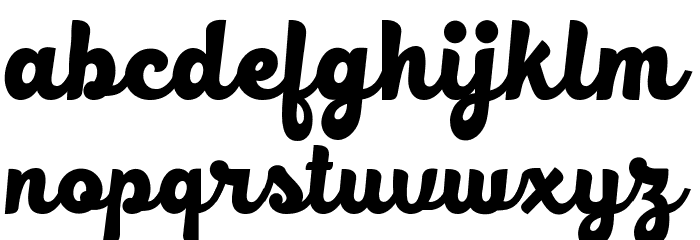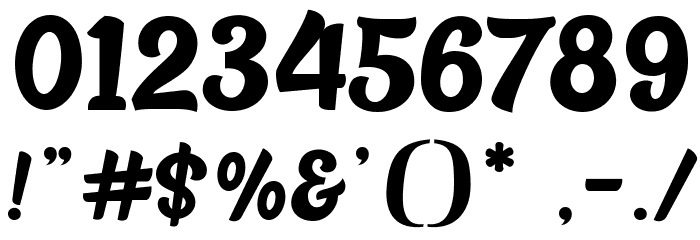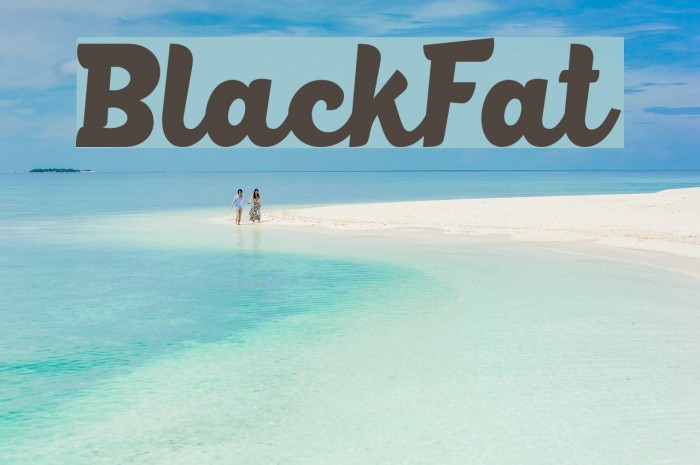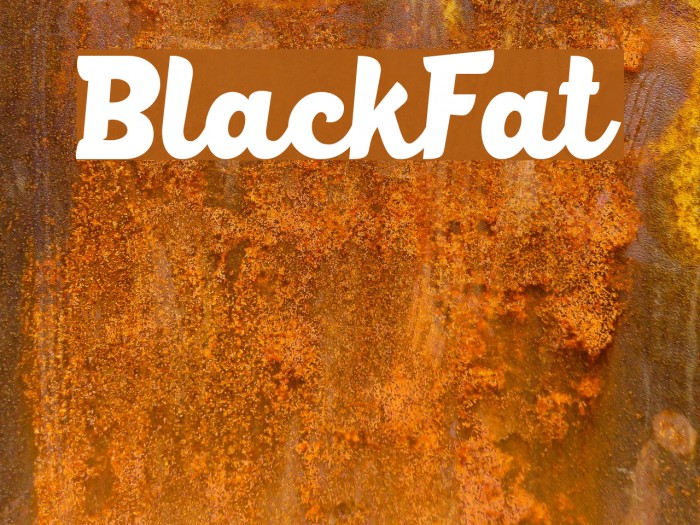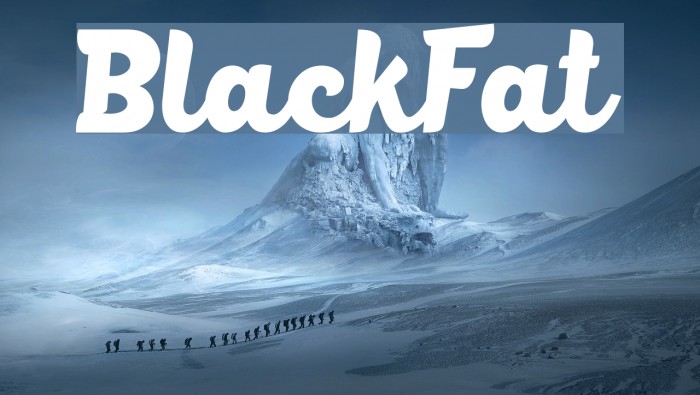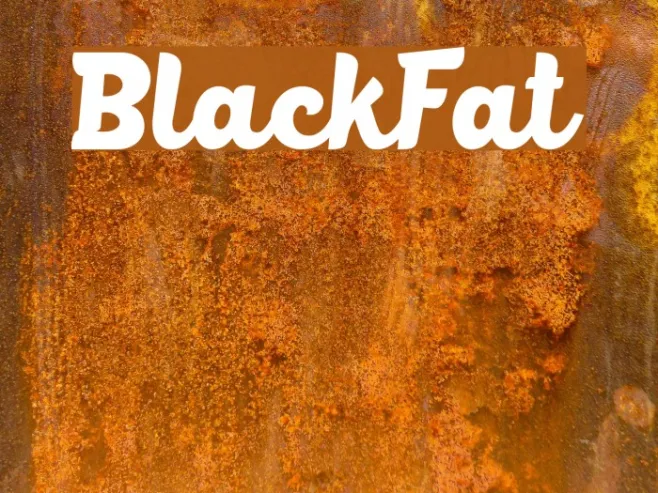
BlackFat Font
This font features a bold and playful script style with a strong presence. The characters are rounded and connected, giving a sense of fluidity and movement. The uppercase letters are slightly more structured, while the lowercase letters exhibit a more casual and handwritten feel. The numerals maintain the same boldness, ensuring consistency across all characters. Special characters are well-integrated, maintaining the overall aesthetic. The font's thick strokes and rounded edges make it highly legible and impactful, suitable for various design applications.
A bold, playful script font with rounded, connected characters.
- Proposed Projects: Ideal for branding, posters, packaging, and any design needing a bold, friendly touch.